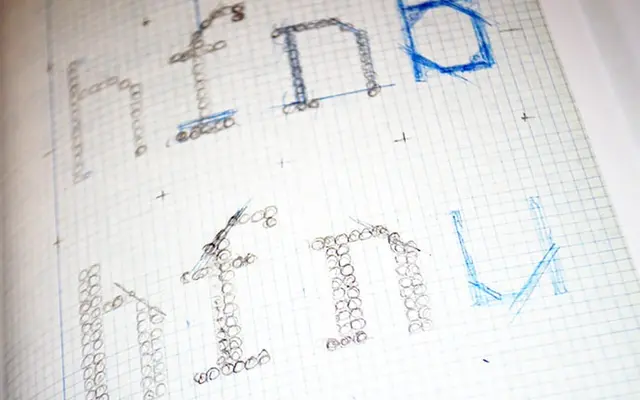
Foundry Gridnik
The Foundry Types · Wim Crouwel · 1996
A digitisation of Wim Crouwel's unpublished Olivetti typewriter face from the late 1960s, built on a strict modular unit system and expanded into a 10-style family by The Foundry in 1996.
Derived from Crouwel's Olivetti commission and his pen and ink drawings for 1976 Dutch PPT postage stamps, the design applies a rigorous grid logic in which every weight is a calculated multiple of a base unit of seven. The result is an angular geometric sans with an unusual warmth that separates it from colder modular faces. Four weights from Light to Extra Bold each carry an italic, all developed with Crouwel's direct approval.
A strictly grid-based geometric sans with angular, modular letterforms derived from Crouwel's systematic unit-based construction, placing it firmly in the geometric sans category with a distinctly rationalist character.